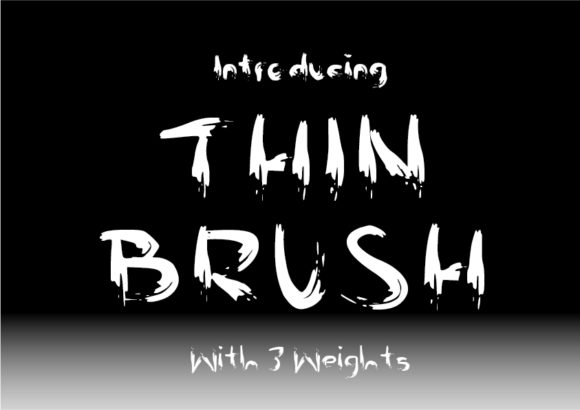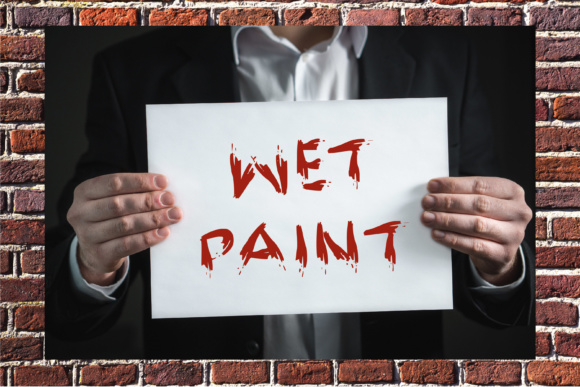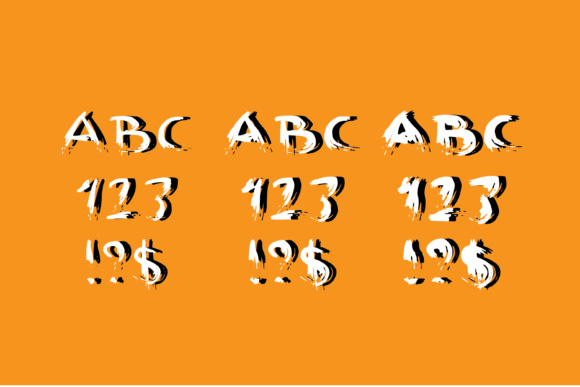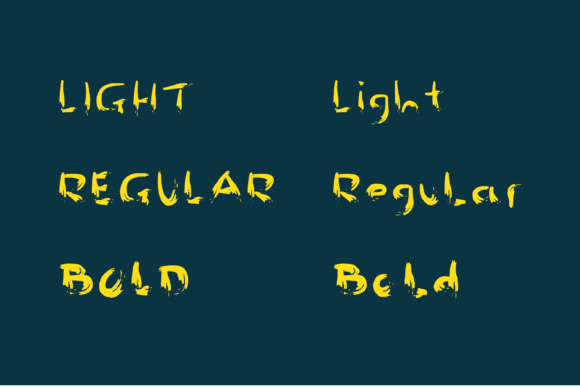
Thin Brush Font
About Thin Brush Font
Thin handmade brush style font with small rough strokes. Give designs , posters or any graphics a hand made, street sellers sign feel. Complete with upper and lower a-z, numbers and some symbols and punctuation.